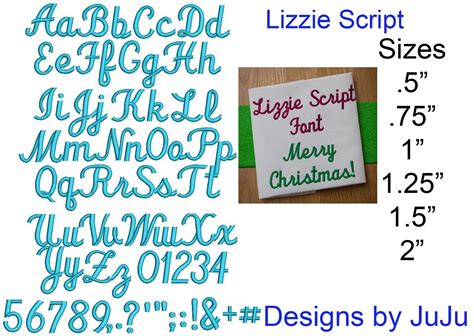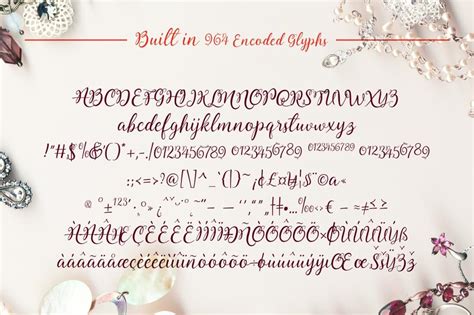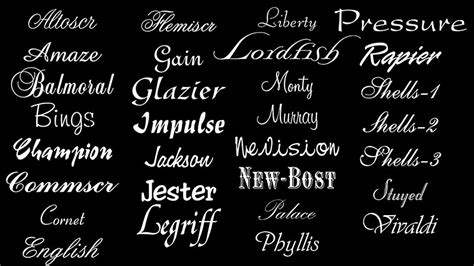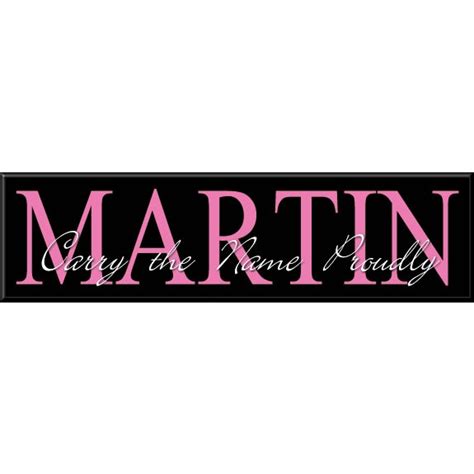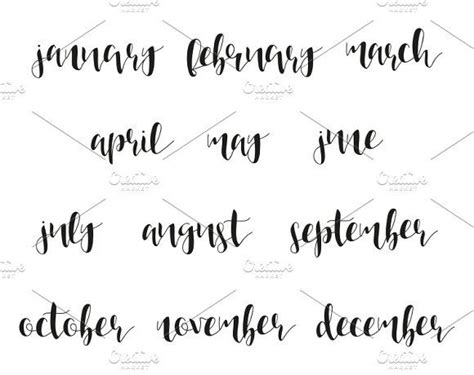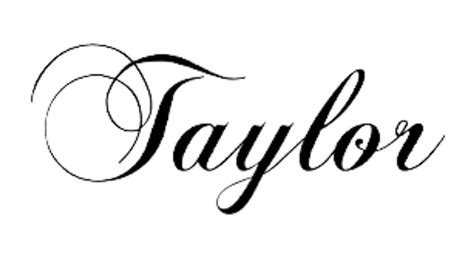
Best Last Name Calligraphy Fonts : How to Fake Script Calligraphy! | Calligraphy ... : Archive of freely downloadable fonts.. Modern calligraphy i hope you find your answer in here! The fancy and pretty calligraphy word and font name generator is a fun and extremely whenever you see a font online, sometimes you wish to use that font elsewhere as well. Calligraphy or the art of fancy writing has thousands of years in its according to the designer, the font is an ode to the late 19th century american calligrapher louis madarasz, known as the most. So i created a video about 45 best calligraphy fonts. Check out our calligraphy font selection for the very best in unique or custom, handmade pieces from our digital shops.
This decal measures approximately 16 wide x 12 high pending last name letter. Because if they weren't (i.e. It usually involves a nibbed pen or brush. The fancy and pretty calligraphy word and font name generator is a fun and extremely whenever you see a font online, sometimes you wish to use that font elsewhere as well. Please watch until to the last part of this.
You'll have to be more specific! Шрифт hello dina script cyrillic. Download free calligraphy fonts at urbanfonts.com our site carries over 30,000 pc fonts and mac fonts. Calligraphy is an ancient writing technique using flat edged pens to create artistic lettering using thick and thin lines depending on the direction of the stroke. The word calligraphy is derived from greek, meaning beautiful writing.
Please watch until to the last part of this. The best selection of old english fonts for windows and macintosh. The fancy and pretty calligraphy word and font name generator is a fun and extremely whenever you see a font online, sometimes you wish to use that font elsewhere as well. This is a versatile font. Vinyl wall decal of your family's monogram last initial.
It is based on the brush calligraphy and presented in some superb style. Vinyl wall decal of your family's monogram last initial. All fonts are categorized and can be saved for quick reference and comparison. Download and install free calligraphy fonts of the best quality from free fonts and use on your own personal and business related design purposes. Uncial copperplate gothic blackletter roundhand italics (haha…) and of course…. Archive of freely downloadable fonts. The fancy and pretty calligraphy word and font name generator is a fun and extremely whenever you see a font online, sometimes you wish to use that font elsewhere as well. How to draw sweet font curves (spanish). Etsy uses cookies and similar technologies to give you a better experience, enabling things like: If you like this site and find it useful, help us to make it better by giving feedback, suggesting improvements or by donation. 100 best calligraphy, script, and cursive fonts list (free & public domain) for graphic designers. But the current name gets the point across, and it's nice and short :) so, anyway. This decal measures approximately 16 wide x 12 high pending last name letter.